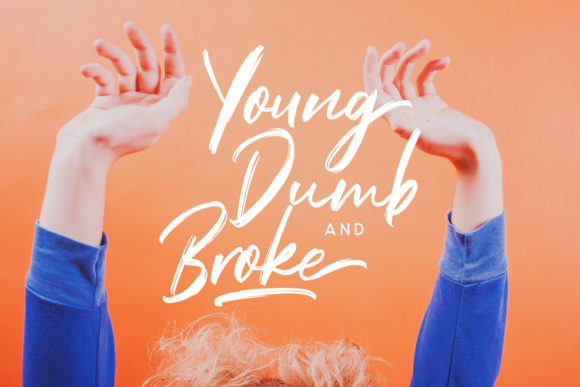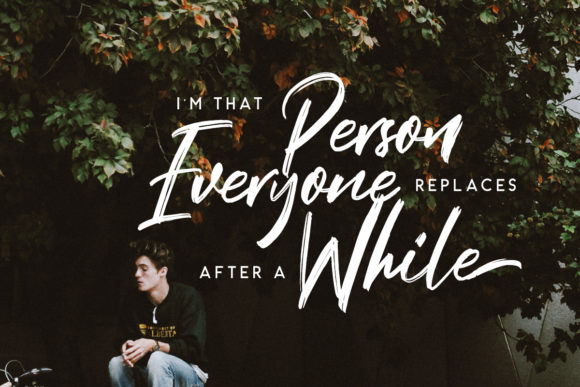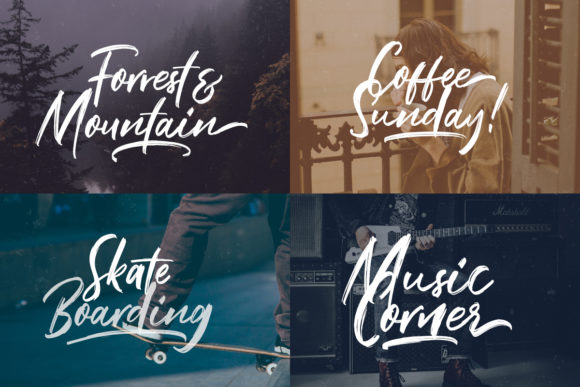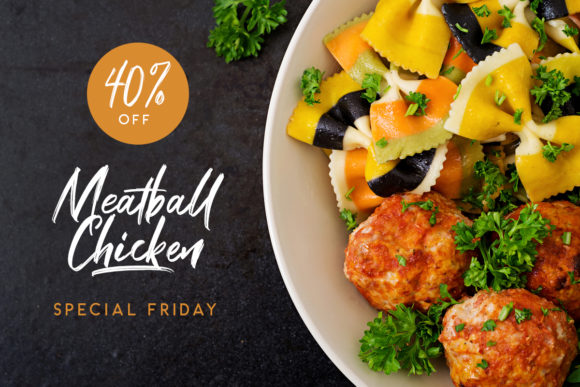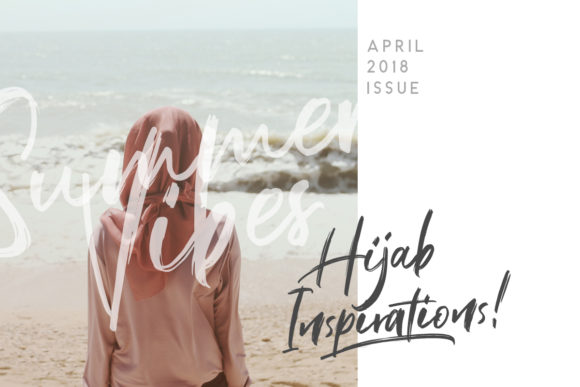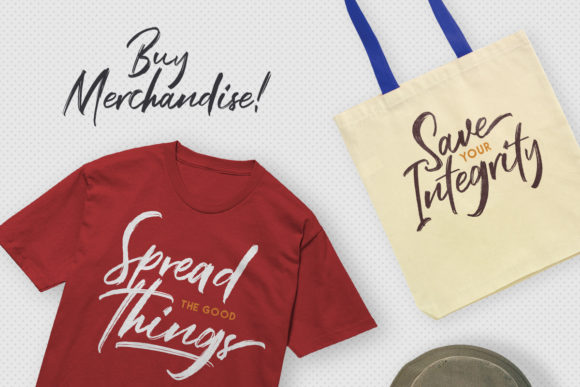
Black Mountage Font
About Black Mountage Font
Black Mountage is an exquisite handwritten font, masterfully designed to become a true favorite. It maintains its classy calligraphic influences while feeling contemporary and fresh. Fall in love with it and bring your projects to the highest levels!